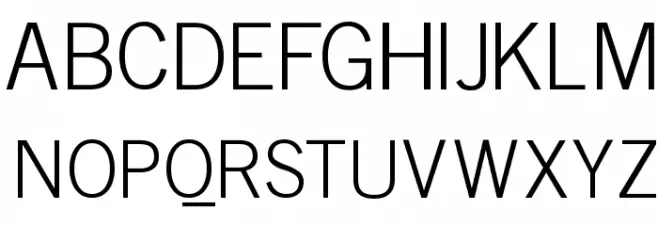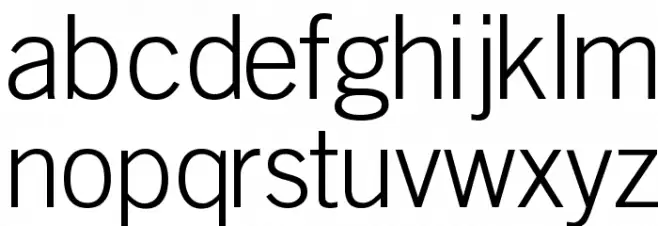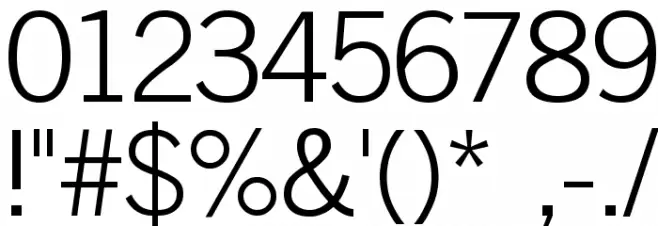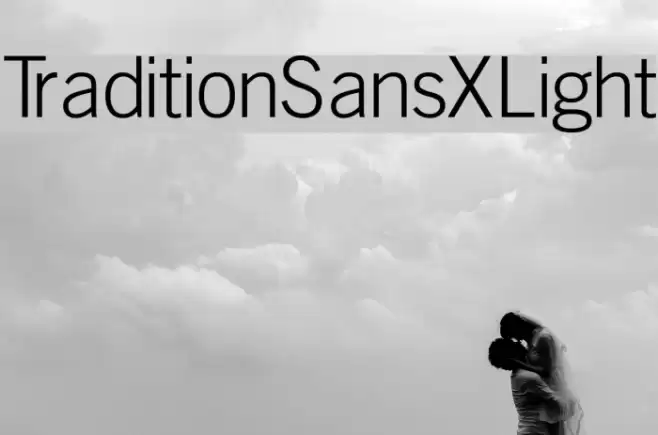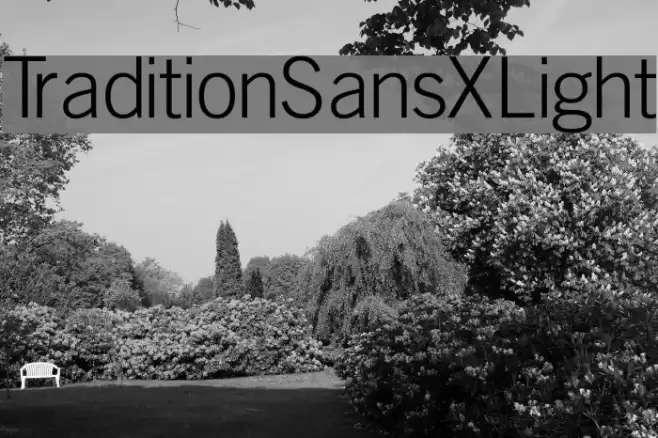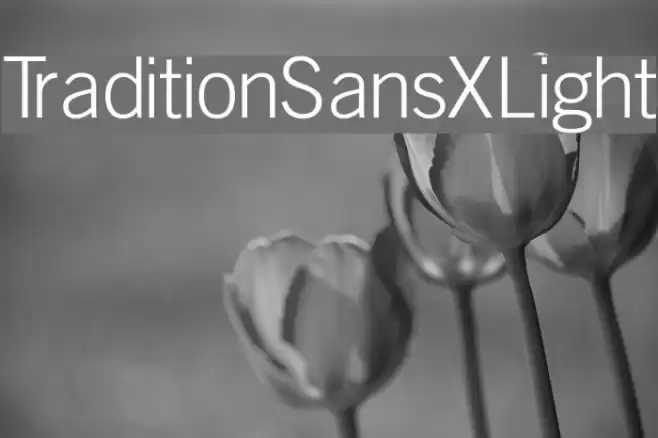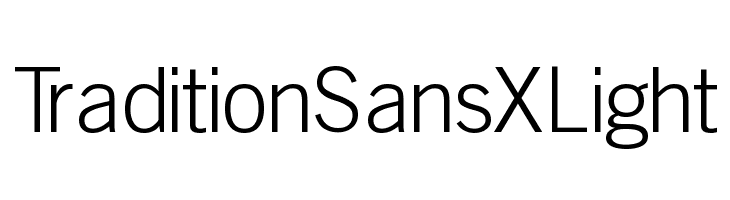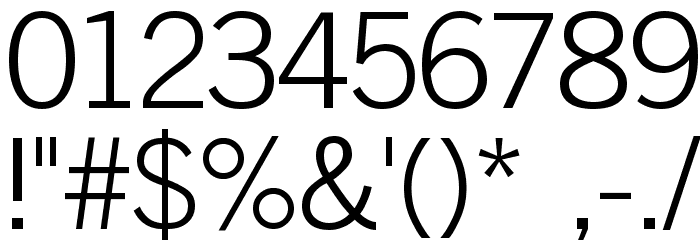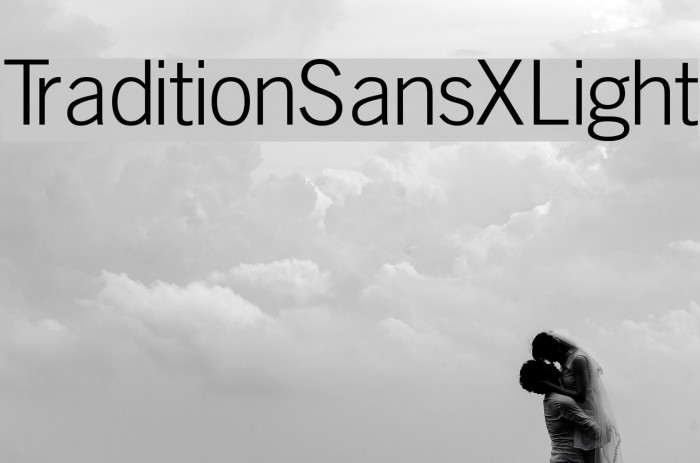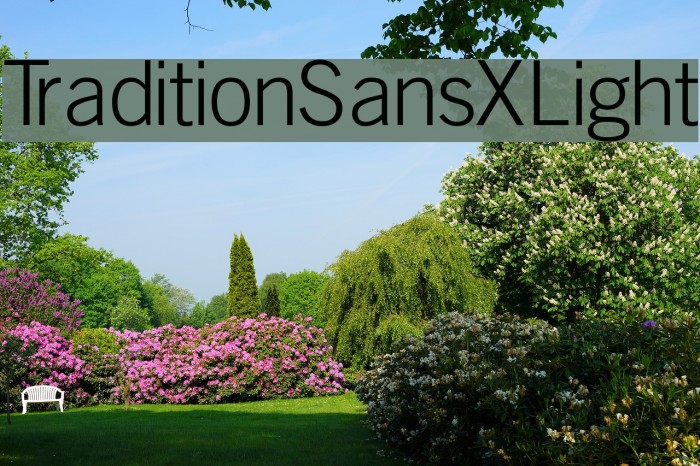
TraditionSansXLight
This font features a clean and modern sans-serif style with a light weight, making it ideal for minimalist designs. The characters are evenly spaced, contributing to a balanced and harmonious appearance. The uppercase letters are tall and elegant, while the lowercase letters maintain a consistent and smooth flow. The numerals are clear and easy to read, enhancing the font's versatility. Special characters are designed with simplicity in mind, ensuring they integrate seamlessly with the rest of the character set. Overall, this font exudes a contemporary and professional vibe, suitable for a wide range of applications.
A modern, light sans-serif font with clean lines and balanced spacing.
- Proposed Projects: Ideal for corporate branding, web design, and editorial layouts.
- Weight: Light